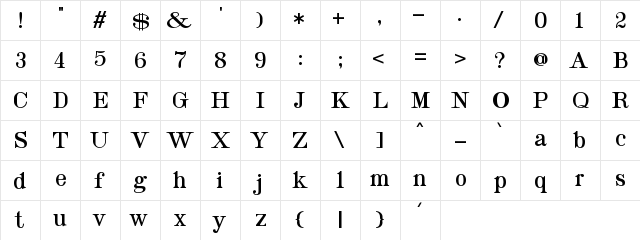
Taylor Serif Regular
| Designer | Thor Christopher Arisland |
Design Context for Taylor Serif Typeface
Taylor Serif carries the refined structure of traditional serif typography, with bracketed terminals and considered proportions that communicate credibility and craft.
Pro Tip: Use Taylor Serif for editorial body copy and considered headline work. Pair with a neutral sans for UI elements or captions to create a classic hierarchy.